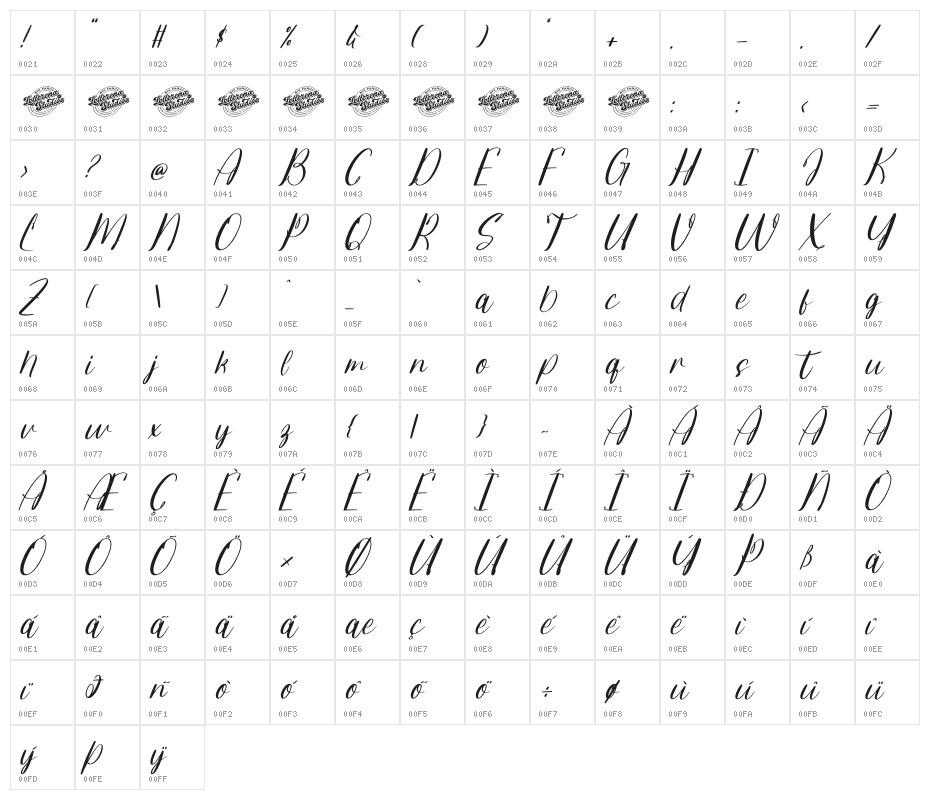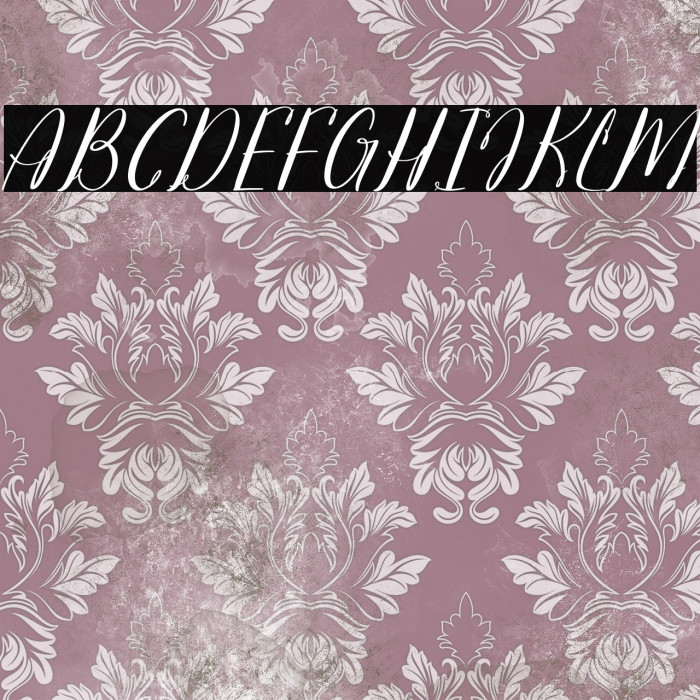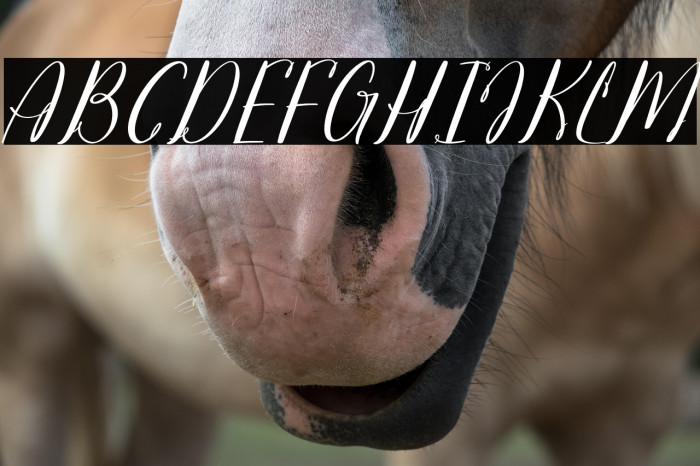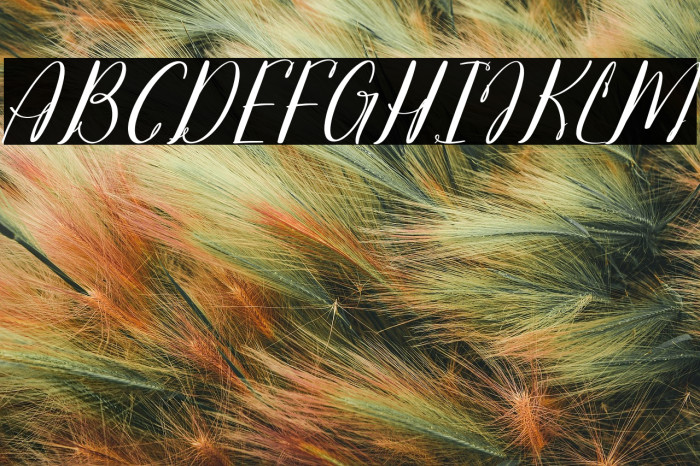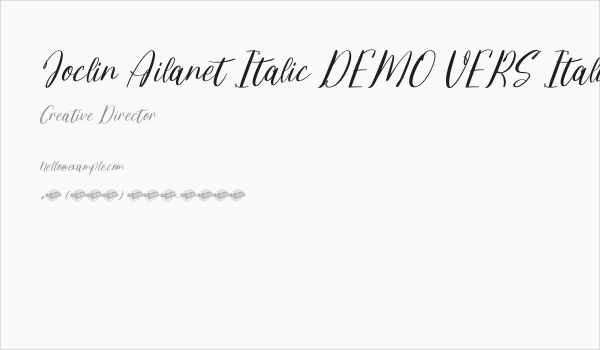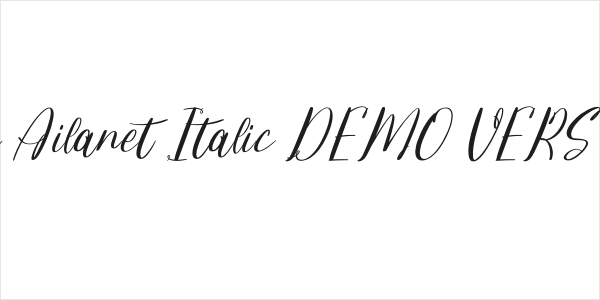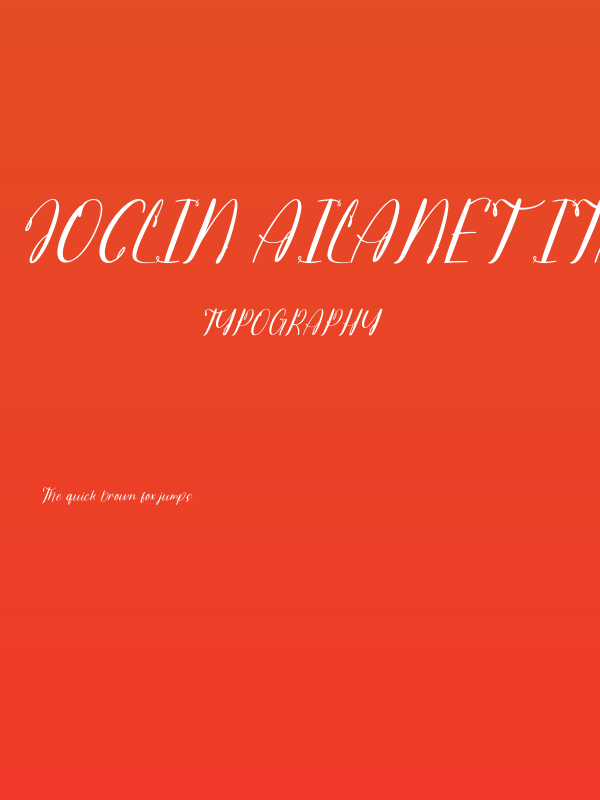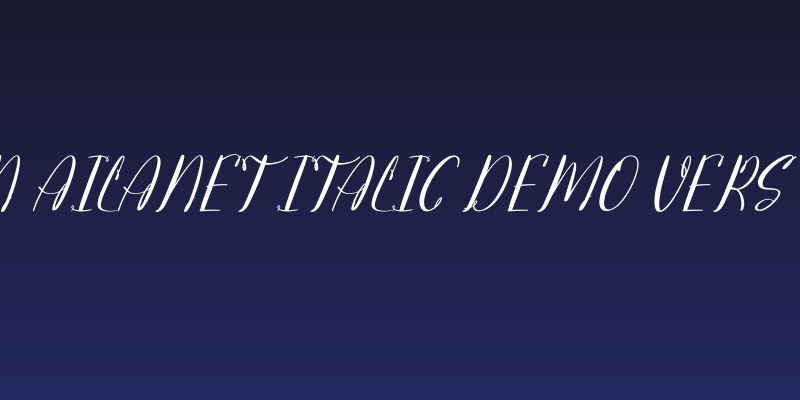
Joclin Ailanet Italic DEMO VERS Italic Font
Joclin Ailanet Italic DEMO VERS Italic Description
A flowing, cursive script font with elegant, sweeping strokes and a pronounced italic slant. The letterforms are connected in a handwritten style, featuring high contrast between thick and thin lines, and decorative swashes on some characters.
| Overall Style | Decorative, Elegant, Handwritten |
| Use Case | Logos, Invitations, Headlines, Decorative text |
| Proposed Projects | Wedding invitations, greeting cards, branding, elegant logos, social media graphics. |